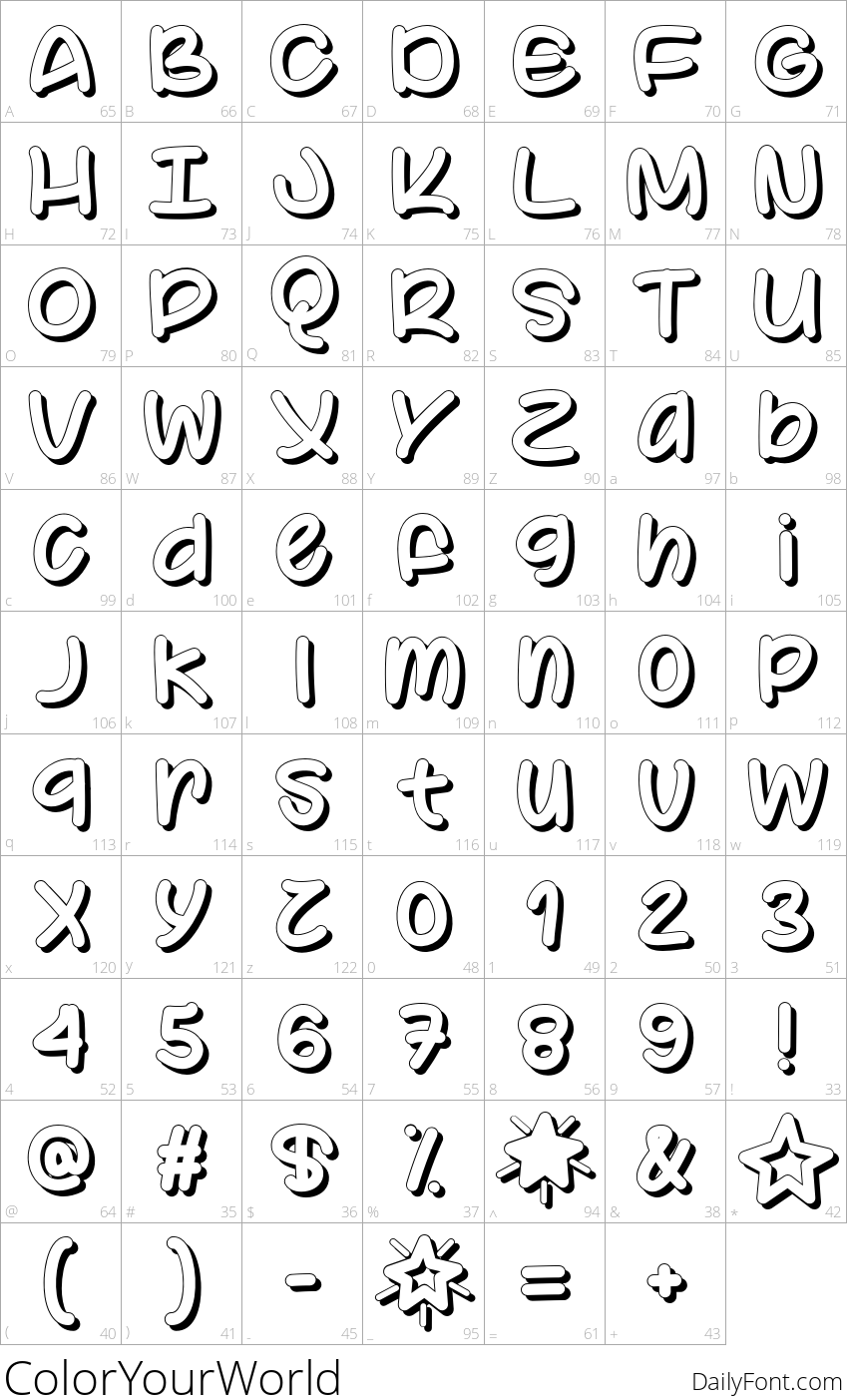
Color Your World
Seeking a font that adds a touch of whimsy and playfulness to your designs? Look no further than this charming 3D outline font! With its unique blend of simplicity and visual interest, it's perfect for a wide range of projects. From children's book illustrations to graphic novels, packaging design, and more, this font is sure to delight.
One of the standout features of this font is its set of special symbols, which allow you to add an extra layer of fun and creativity to your designs. The open star, solid star, fancy star, shining open star, shining solid star, and shining fancy star are all at your fingertips, waiting to be used to add a pop of personality to your work.
Whether you're looking for a font that's perfect for a children's book cover, a logo for a playful brand, or simply want to add some visual flair to a blog post or social media graphic, this 3D outline font is the ideal choice. Its versatility and charm make it a great addition to any designer's toolkit.